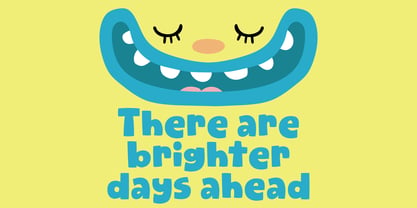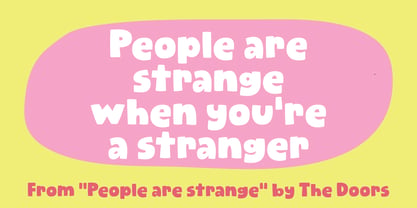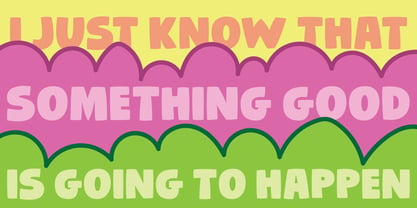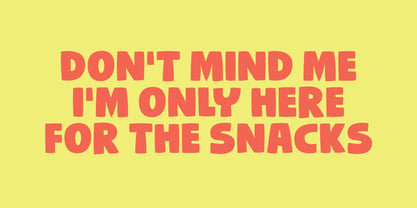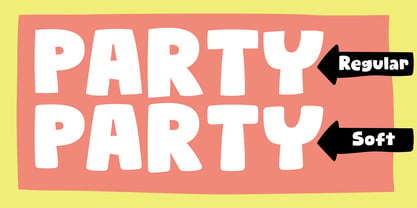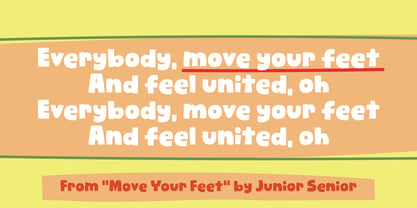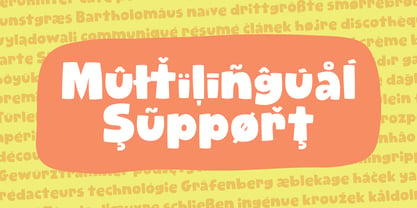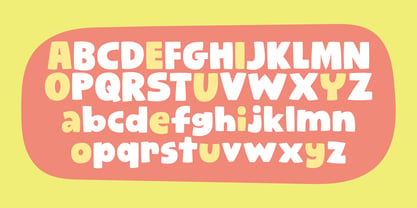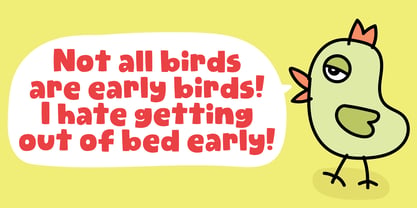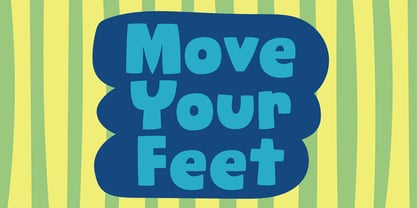
Move Your Feet
Die Schriftfamilie Move Your Feet wurde von Jakob Fischer entworfen und von PizzaDude.dk veröffentlicht. Move Your Feet enthält 4 Stile und Familienpaketoptionen. Mehr über diese Familie
"Move Your Feet" is my chunky little party machine disguised as a font! Bouncy curves, playful and full of comic energy!
The letters are slightly irregular, but nothing that messes with the legibility. Perfect for comics, kids stuff, funny quotes and anything that needs a shot of happy chaos! :)
I have added a rounded version, for an even more funky dance moves! :)
FEATURES:
I have included the Standard Ligatures - the well-known ligatures such as ff, fi, fl, ffi, ffl
Subscript and Superscript
Normally typedesigners resizes the numbers to make Subscript and Superscript. I do that on occasions as well, but in this case I have drawn the numbers, instead of resizing them. That way they appear more natural, organic and unique.
Fractions are nice having available. You skip the work of resizing the numbers yourself, because I have done all the work for you!
Multilingual support
This font comes with extensive multilingual support, and supports loads of different languages.